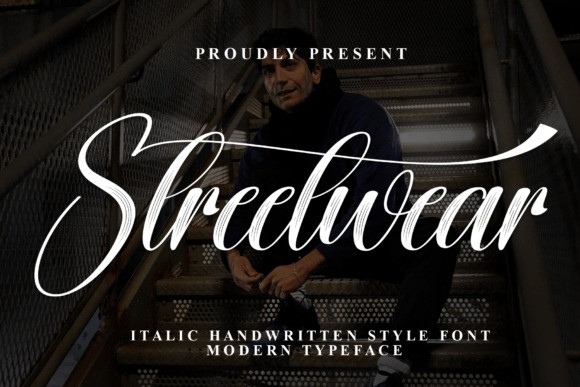
Streetwear Calligraphy Font
Streetwear Calligraphy Font is a stylish italic handwriting font that looks casual and cool. It has a trendy vibe, making it great for adding a laid-back touch to designs like posters, t-shirts, or social media posts!